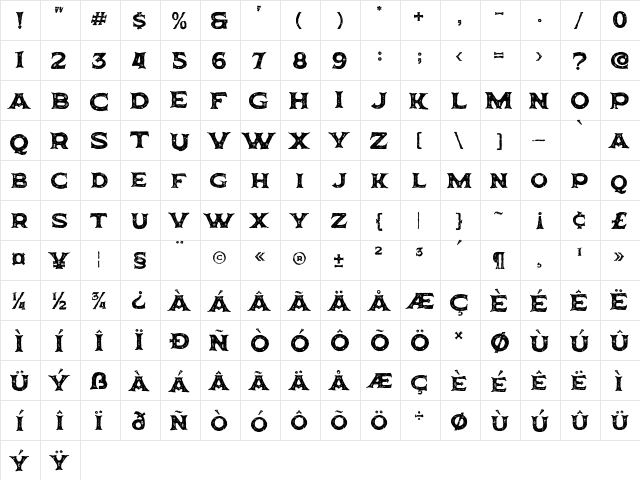
Horbse Textured
| Style | Textured |
| Foundry | Angin Studio |
| Designer | Angin Studio |
Design Context for Horbse Typeface
Horbse trades polish for personality, using distressed and eroded forms to bring grit and attitude to creative work.
Suited to punk-influenced zines, underground music branding, streetwear, and raw, anti-corporate design.
Pro Tip: Pair Horbse with intentionally raw or lo-fi design elements. Fighting against it with overly polished surroundings will undermine its personality.